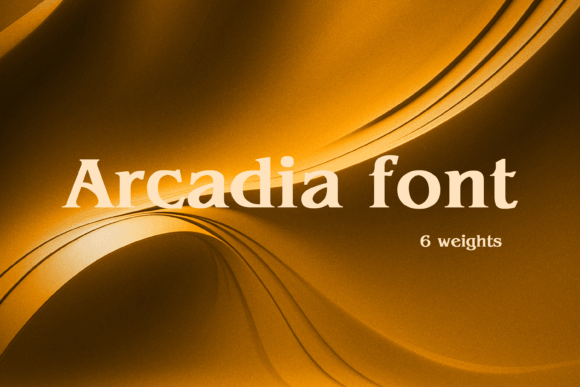
A Touch of Timeless Elegance: The Arcadia Font
Do you ever find yourself browsing through old family albums or antique shops, feeling a deep connection to the past? For many designers, that’s exactly the moment when inspiration strikes. And for those who yearn to bring a sense of nostalgia and classic elegance to their projects, there’s one font that stands out – the Arcadia Font. Characterized by its ornate, vintage style, this serif typeface is a masterclass in high contrast and decorative flair.
The Arcadia Font is more than just a pretty face – it’s a valuable tool for designers who want to evoke a sense of luxury and refinement in their work. With its flared and often exaggerated serifs, this font is perfect for projects that require a touch of sophistication and glamour. Whether you’re designing a high-end fashion brand or a vintage-inspired wedding invitation, the Arcadia Font is sure to leave a lasting impression.
Arcadia Font Key Features
- Unique Characteristics: Arcadia Font features a unique blend of modern and classic elements, making it perfect for designs that require a touch of elegance and sophistication.
Arcadia Font Review
Overall, I think the Arcadia font is a beautiful and elegant choice for any project. It has a ✨ classic, timeless feel that works well for both modern and traditional designs. The font’s intricate details and ornate flourishes add a touch of sophistication and refinement, making it perfect for high-end branding and publishing projects.
Here are some of the things I love about the Arcadia font:
- ✨ Beautifully detailed letterforms that add a touch of elegance to any design
- ✨ Excellent for use in luxury branding, publishing, and high-end design projects
- ✨ Supports a wide range of languages, making it a great choice for global projects
However, as with any font, there are some limitations to consider:
- ⚠️ May be too ornate or fussy for simple or minimalist designs
- ⚠️ Can be difficult to read in small sizes or at low resolutions
- ⚠️ Limited support for certain operating systems or devices
Overall, I think the Arcadia font is a great choice for designers who want to add a touch of luxury and sophistication to their projects. With its beautiful details and elegant feel, it’s perfect for high-end branding and publishing projects. However, it may not be the best choice for simple or minimalist designs, or for use in small sizes or low resolutions.
Practical Application Guide for Arcadia Font
Getting the Most Out of Arcadia Font
For the best results, use the Arcadia font in conjunction with elegant graphics and a minimalist color scheme.
Experiment with different font sizes and styles to create a visually appealing design.
Use the Arcadia font for titles, headings, and body text to create a consistent and professional look.
The Arcadia font is ideal for:
Business cards and marketing materials
Blog posts and articles
Product packaging and labels
Compared to Arcadia Font, Playfair Display has a more formal and classic feel, while Arcadia Font has a more rustic and vintage vibe. Playfair Display is better suited for formal invitations and luxury branding, whereas Arcadia Font is ideal for rustic and country-themed designs.